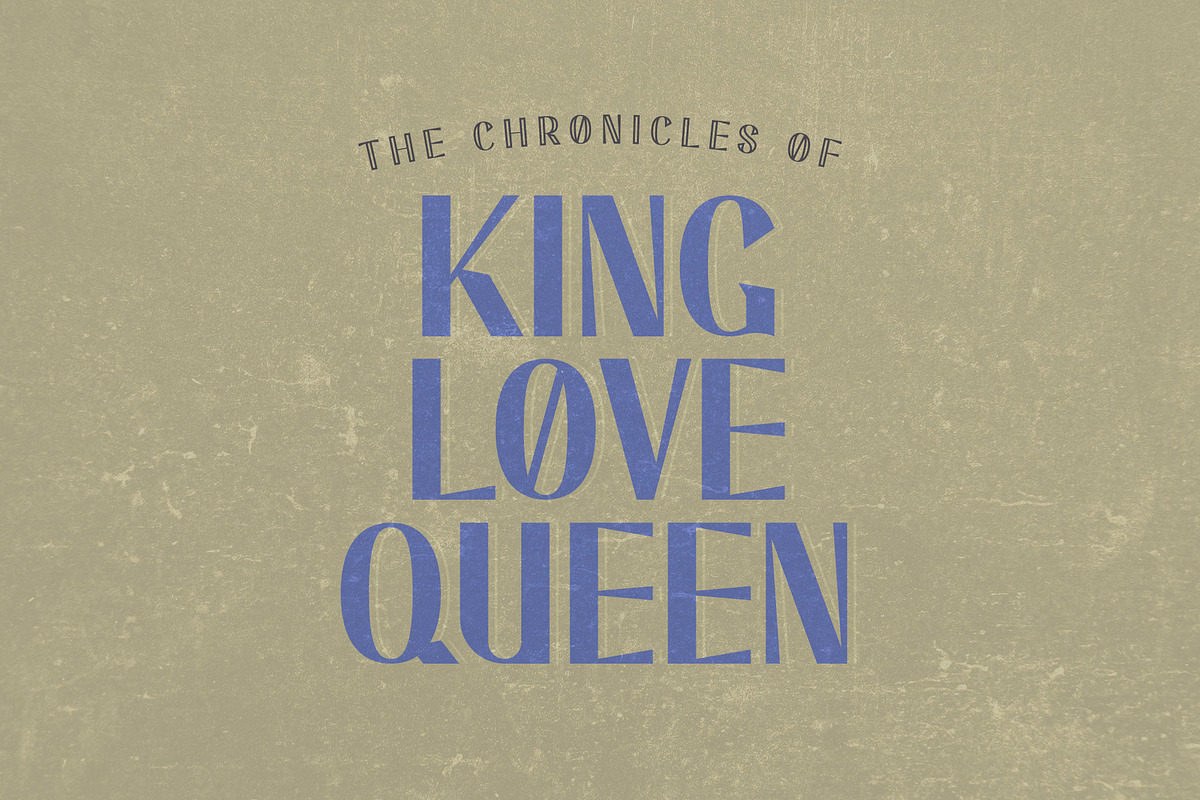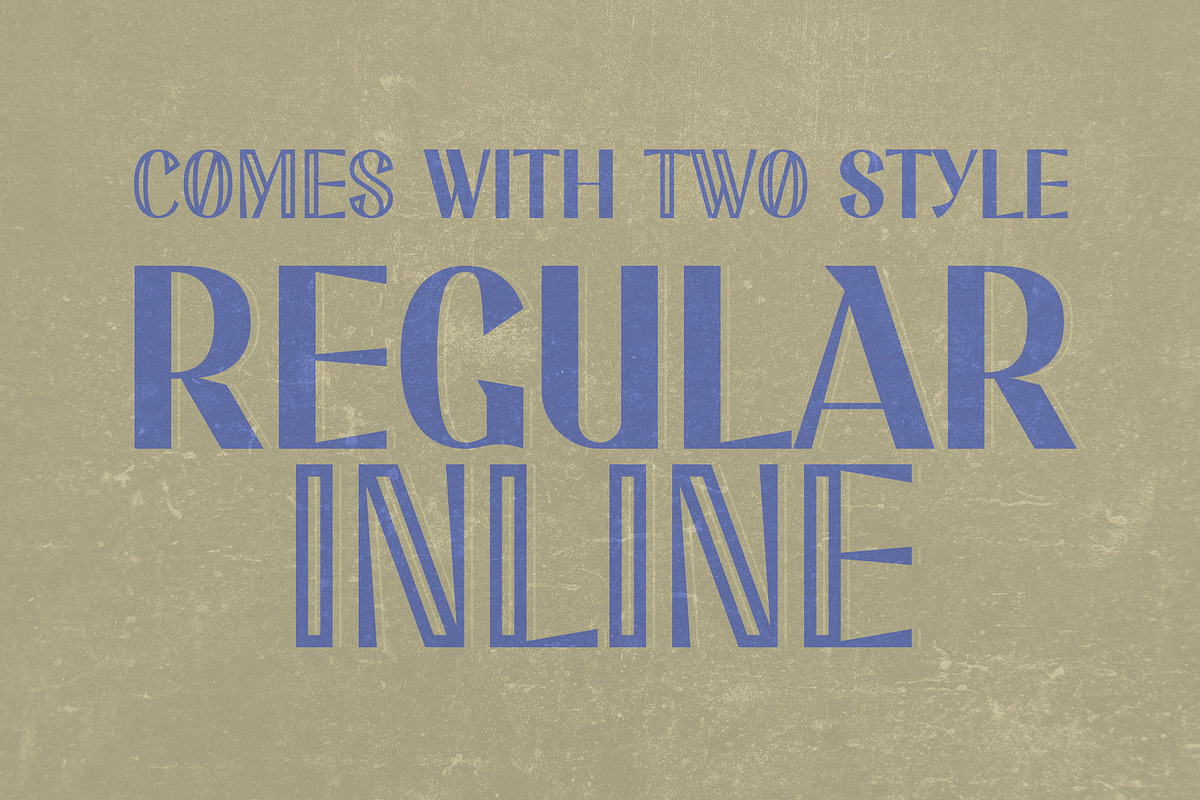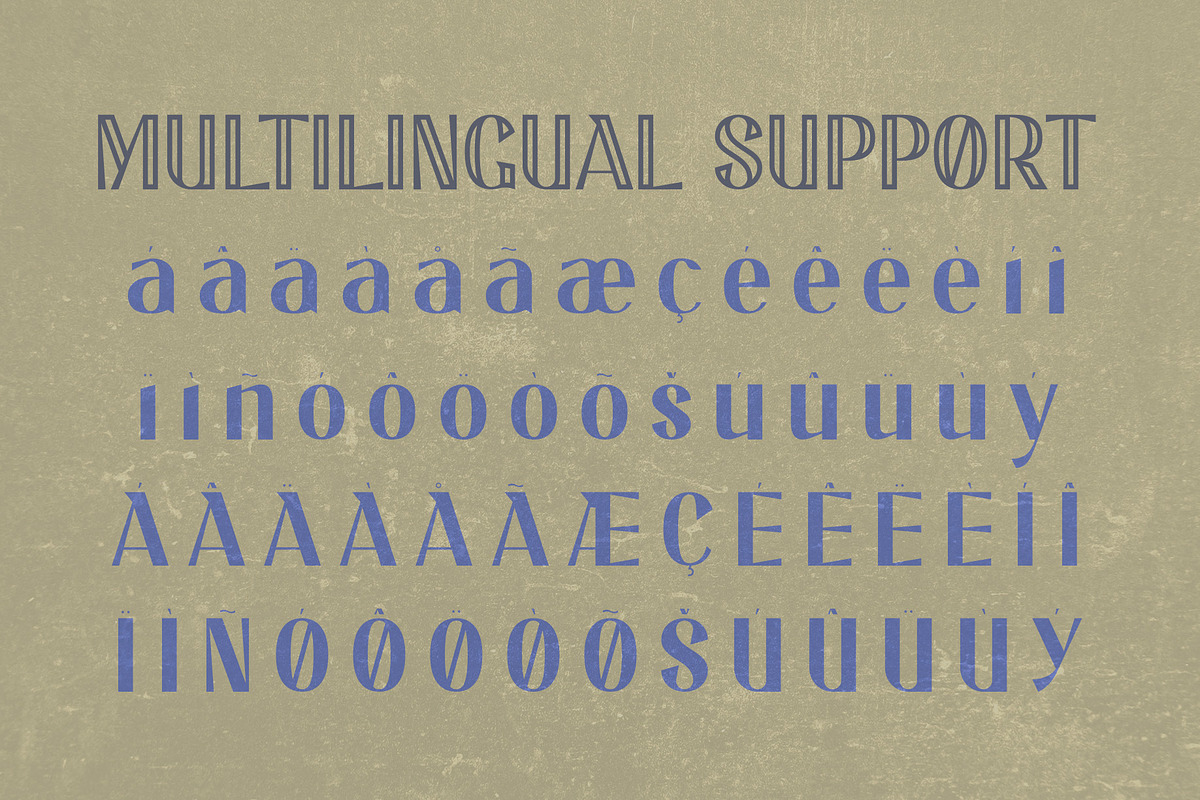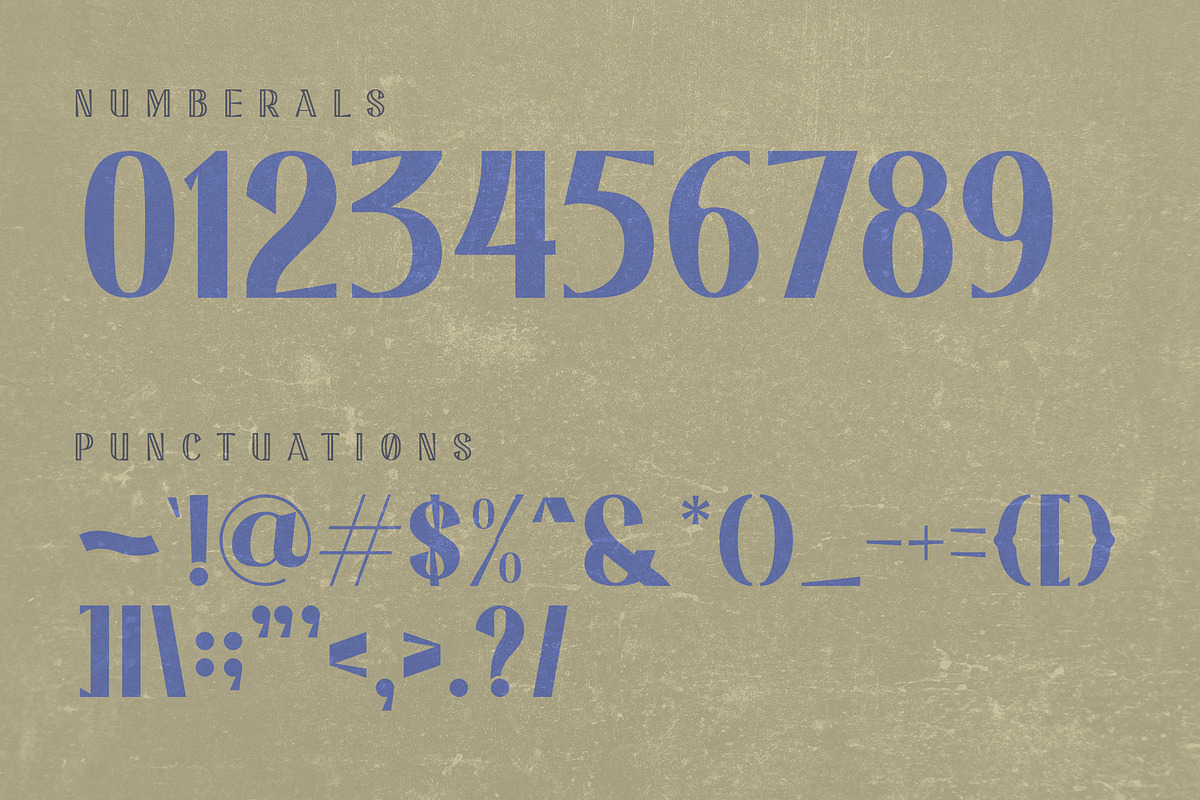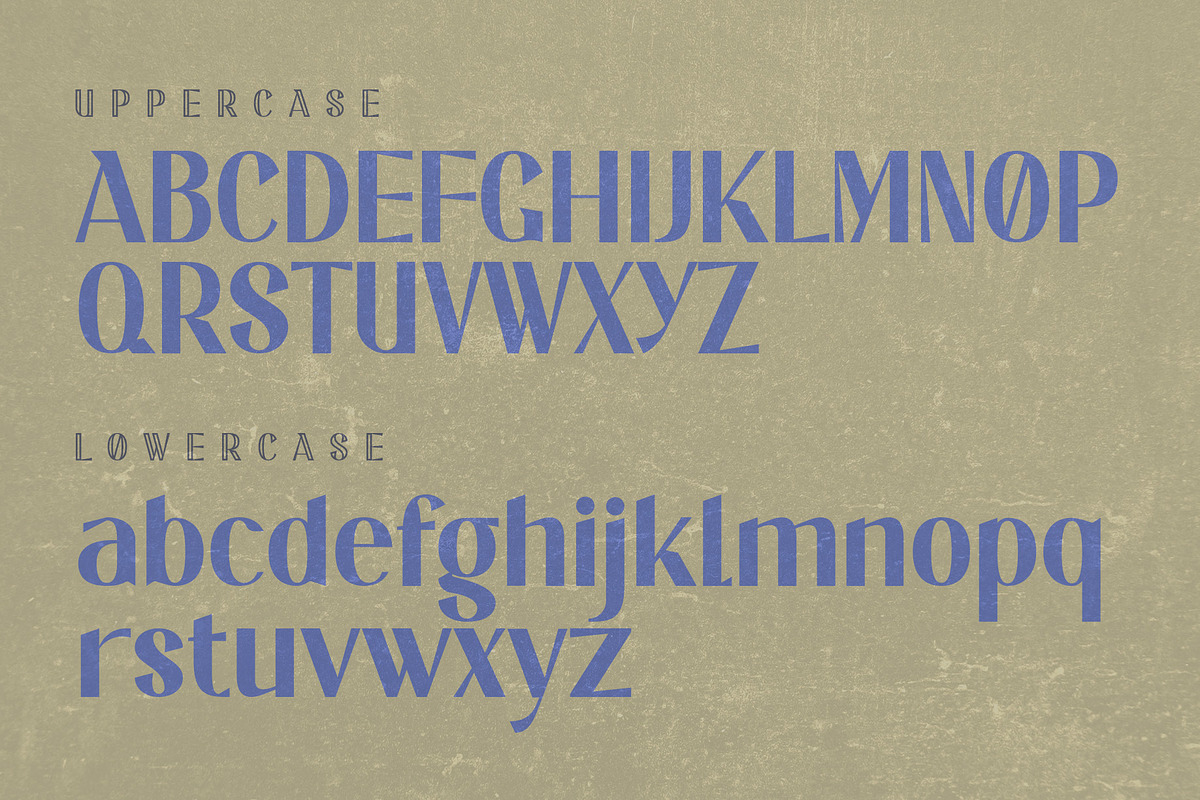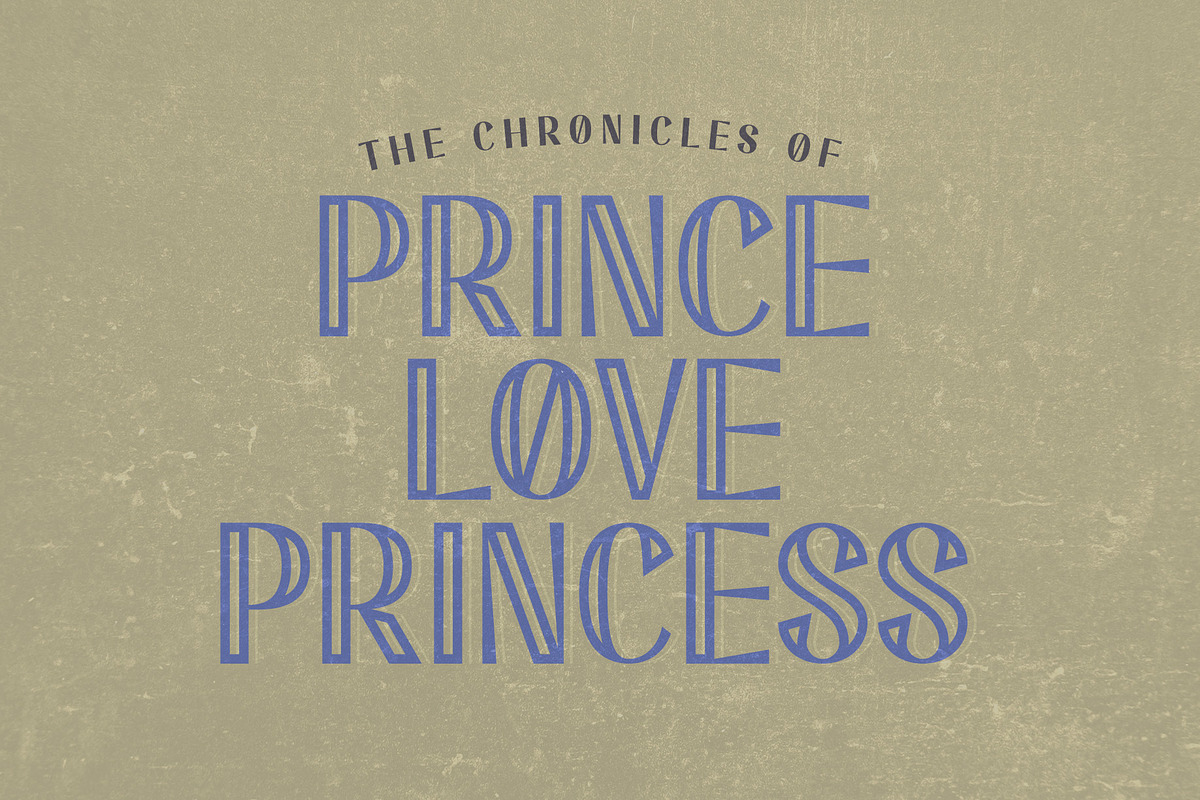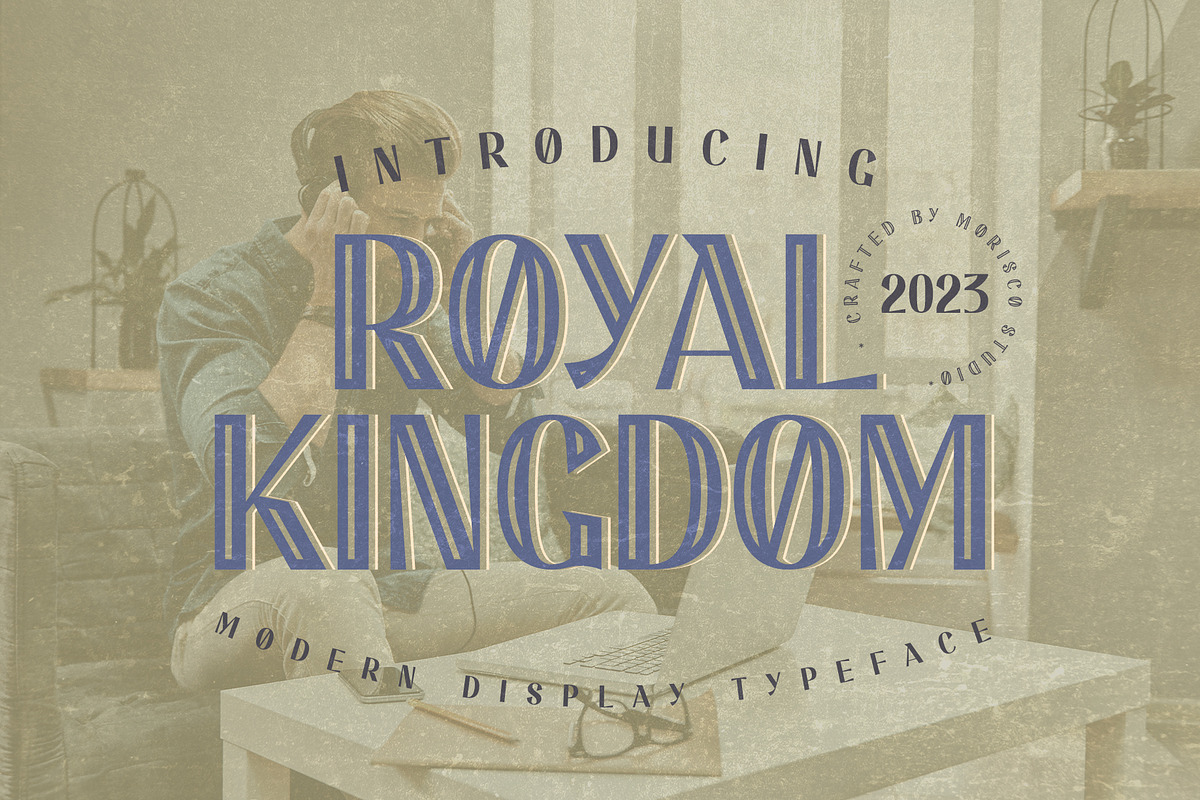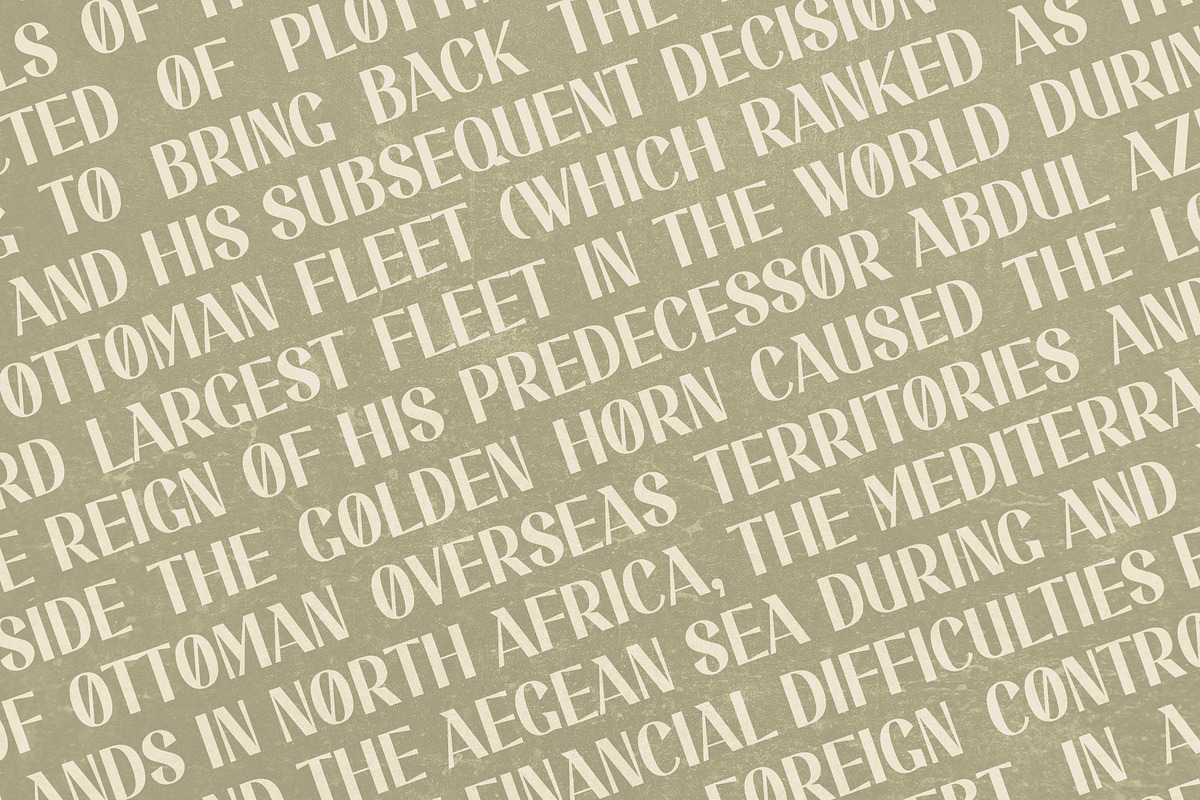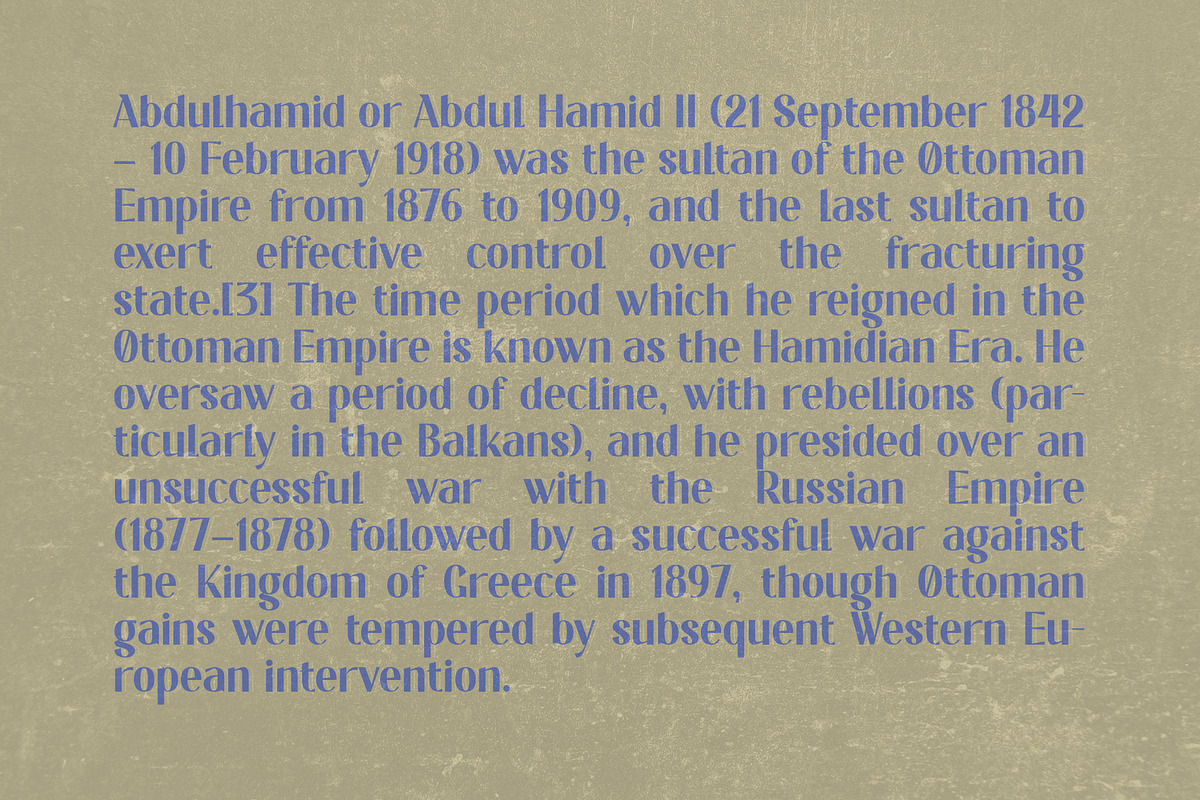
Royal Kingdom - Modern Display
Royal Kingdom is a modern font with a unique character designed by morisco studio. This font, well-suited for headline and any project, like branding, print template, logo and more.